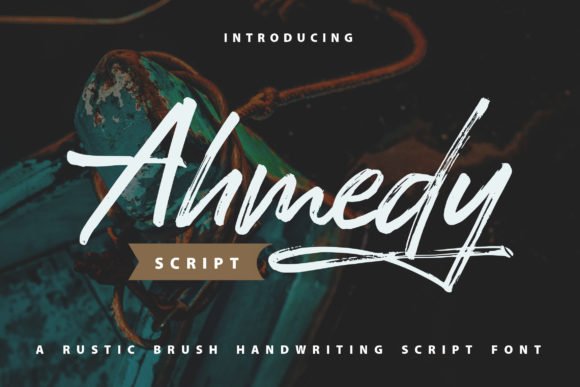
Discover the Perfect Handwritten Touch for Your Designs
As a designer, there’s nothing quite like the thrill of creating something from scratch. It’s the moment when an idea sparks, and you know exactly what you want to bring to life. Whether it’s a wedding invitation, a business card, or a social media post, the right font can make all the difference. And that’s where the Ahmedy | Rustic Brush Handwriting Script Font comes in – a modern handwritten font that adds a touch of natural beauty to any design.
This versatile font is perfect for adding a personal, handwritten feel to your creative projects. With its effortless flow and elegant style, it’s sure to elevate your designs and make them stand out. Whether you’re a seasoned designer or just starting out, the Ahmedy | Rustic Brush Handwriting Script Font is a valuable addition to your toolkit.
Ahmedy | Rustic Brush Handwriting Script Font Key Features
- Font Family: Ahmedy Rustic Brush Handwriting Script Font
- Character Set: Latin (Western European), Cyrillic, Greek, and Extended Latin
- Unique Characteristics: Handwritten, Brush Script, Rustic, Vintage, and Whimsical feel
Designer Review: Ahmedy | Rustic Brush Handwriting Script Font
Overall, I’m really enjoying the Ahmedy Rustic Brush Handwriting Script Font. Here’s what I like about it:
- ✨ Unique and creative: The font’s brush-like strokes and imperfect textures give it a charming, handmade feel.
- ✨ High-quality: The font is well-designed, with clear and readable characters.
- ✨ Versatile: It can be used for a variety of projects, from invitations to digital products.
- ⚠️ Limited character set: The font may not include all the characters you need for certain languages or special characters.
- ⚠️ Not ideal for small text: The font’s brush-like strokes can make small text look messy and difficult to read.
- ⚠️ May not work well with all colors: The font’s texture and imperfections can clash with certain color schemes.
Overall, I think the Ahmedy Rustic Brush Handwriting Script Font is a great addition to any designer’s toolkit. While it has some limitations, its unique character and high-quality design make it a versatile and stylish choice for a wide range of projects.
Tips for Getting the Most Out of Ahmedy
1. Experiment with different font sizes and styles to create a unique look.
2. Use the font in combination with other decorative fonts to add visual interest.
3. Apply the font to bold and eye-catching headlines to draw attention.
4. Use the font to create hand-written style quotes or phrases for a personal touch.
2. Custom gift tags and labels.
3. Social media graphics and ads.
4. Personalized greeting cards and party invitations.
What is the recommended font size and line height for the Ahmedy | Rustic Brush Handwriting Script Font?
The recommended font size for the Ahmedy | Rustic Brush Handwriting Script Font is between 18 and 36 points. For optimal readability, we recommend a line height of at least 1.2 times the font size. This will ensure that the text is legible and visually appealing.